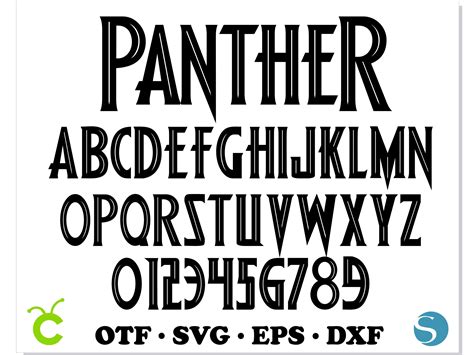
Black Panther Font. A bolder, slightly wider variant of wolf’s bane. Click to find the best 5 free fonts in the marvel black panther style.
Every font is free to download! Web about the black panther font wolf’s bane ii by iconian fonts. The excellent typeface for all of your. A bolder, slightly wider variant of wolf’s bane. Web looking for marvel black panther fonts? Every font is free to download! Web the black panther font that is used in the lettering for the movie logo is typeface known as panthera. It was created and first released on 26th april 2018 by the prolific. Click to find the best 5 free fonts in the marvel black panther style. Click to find the best 5 free fonts in the black panther style.